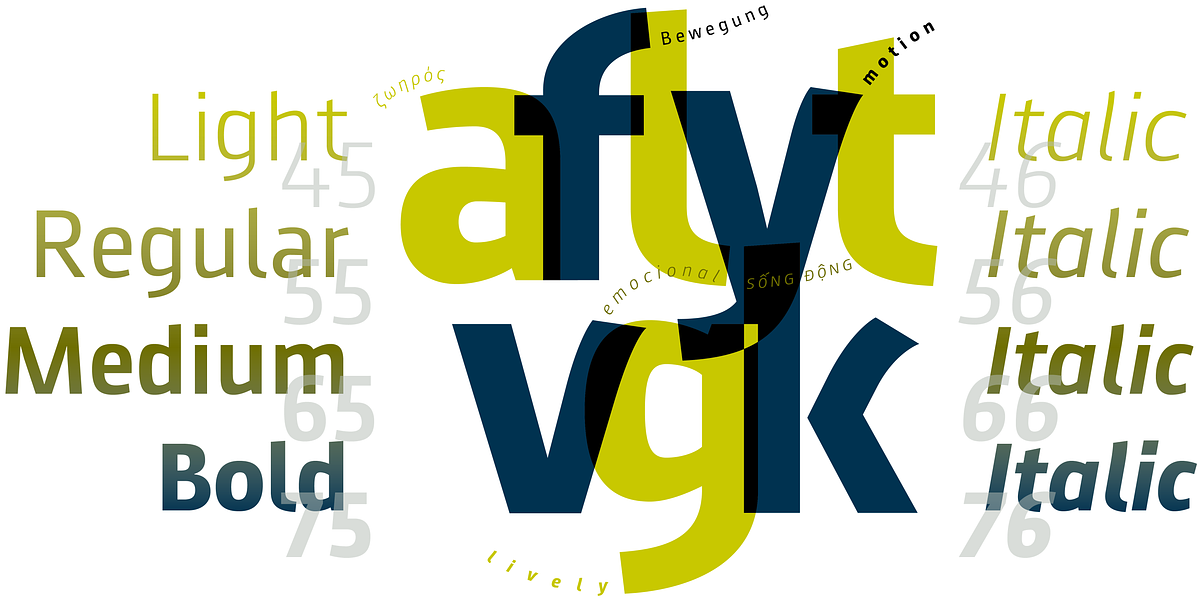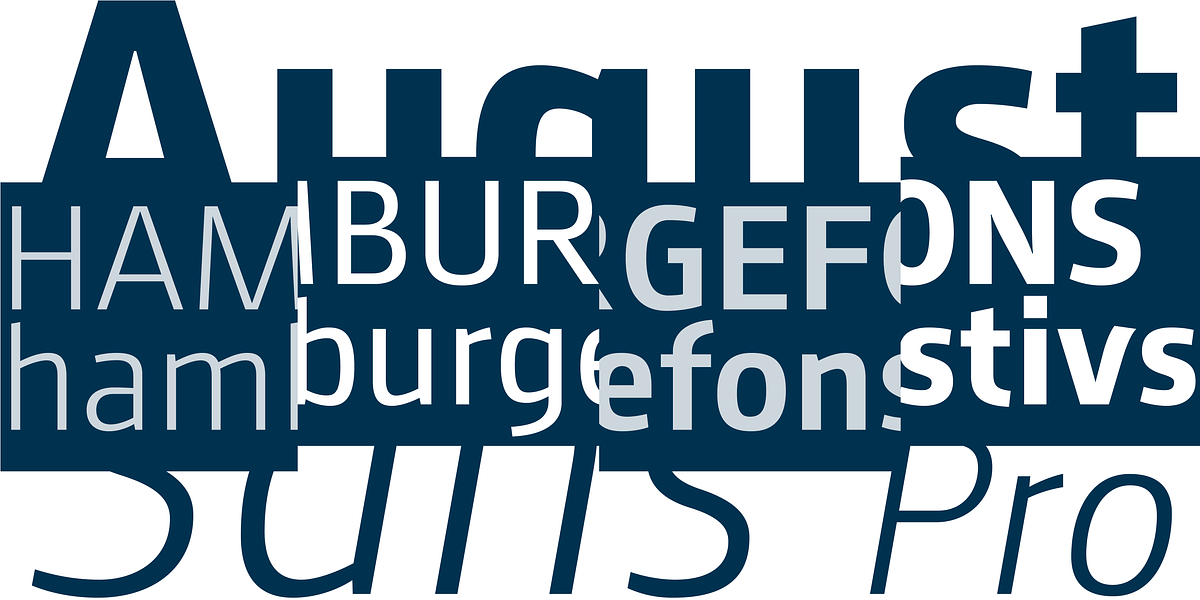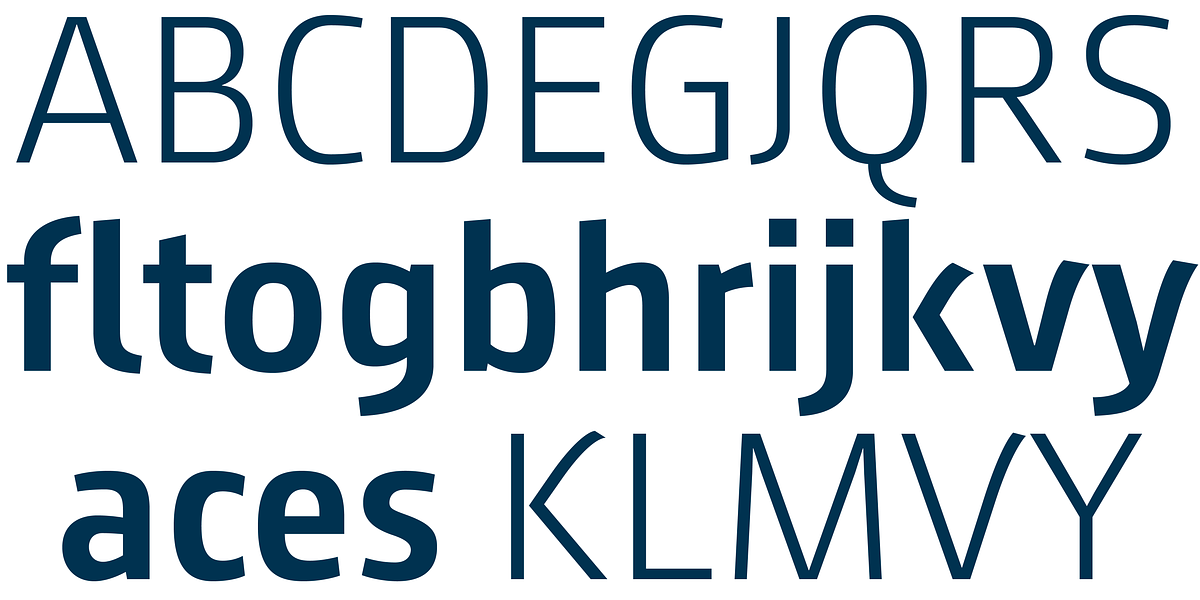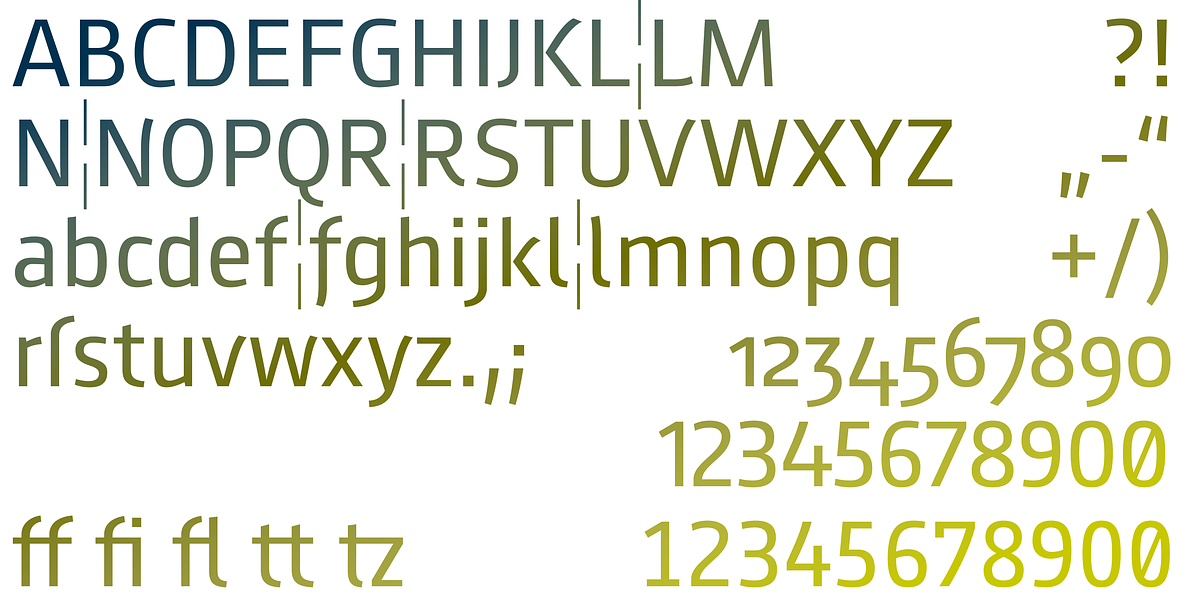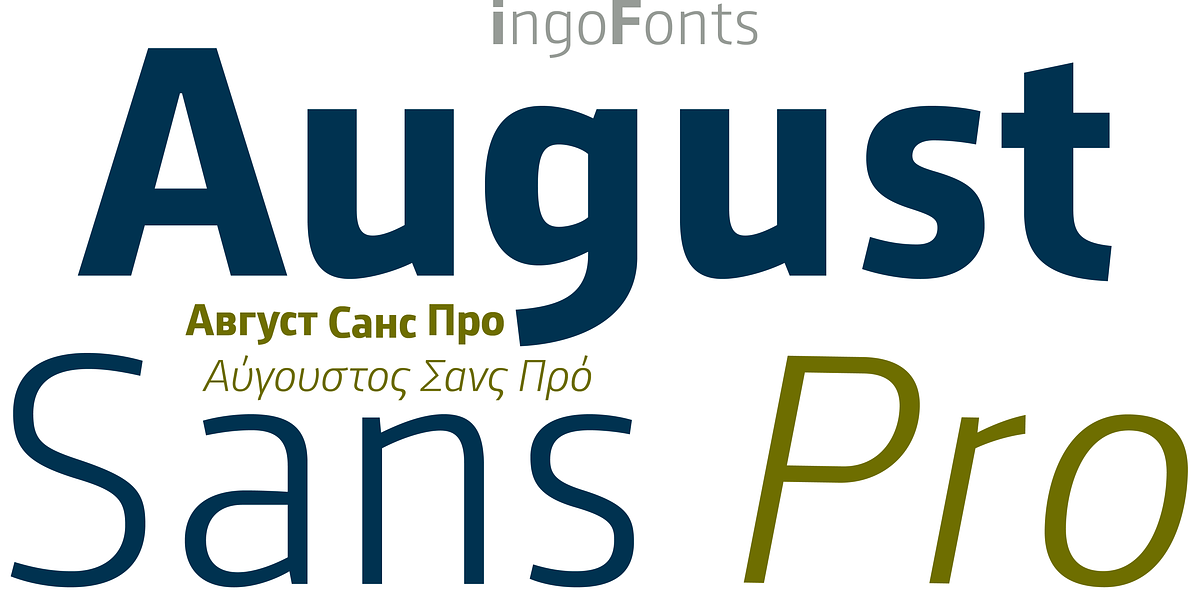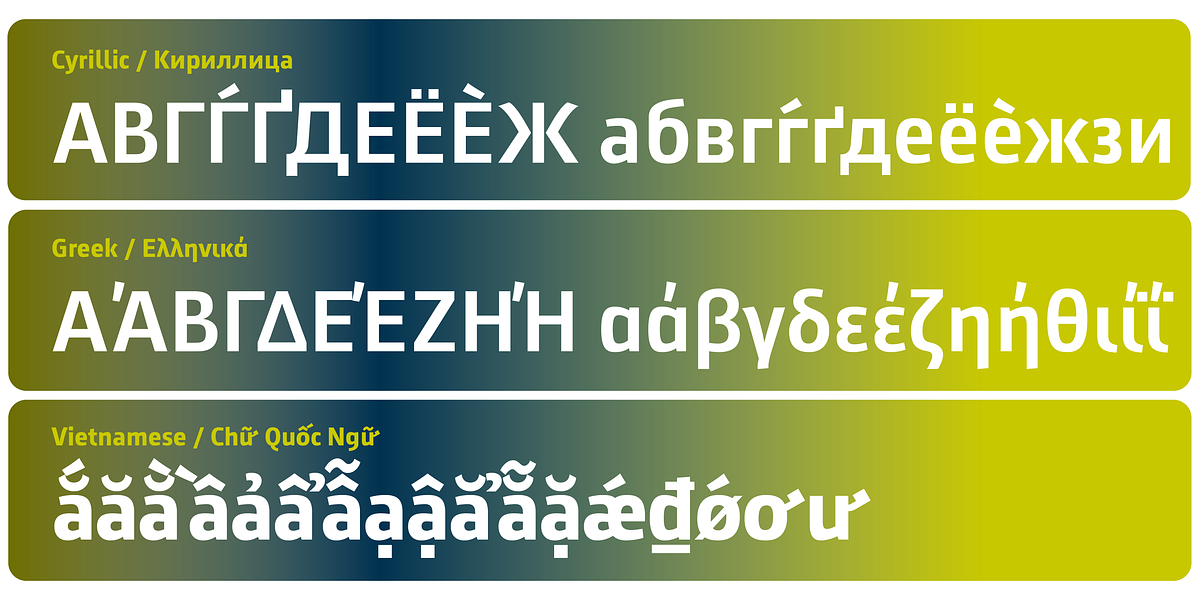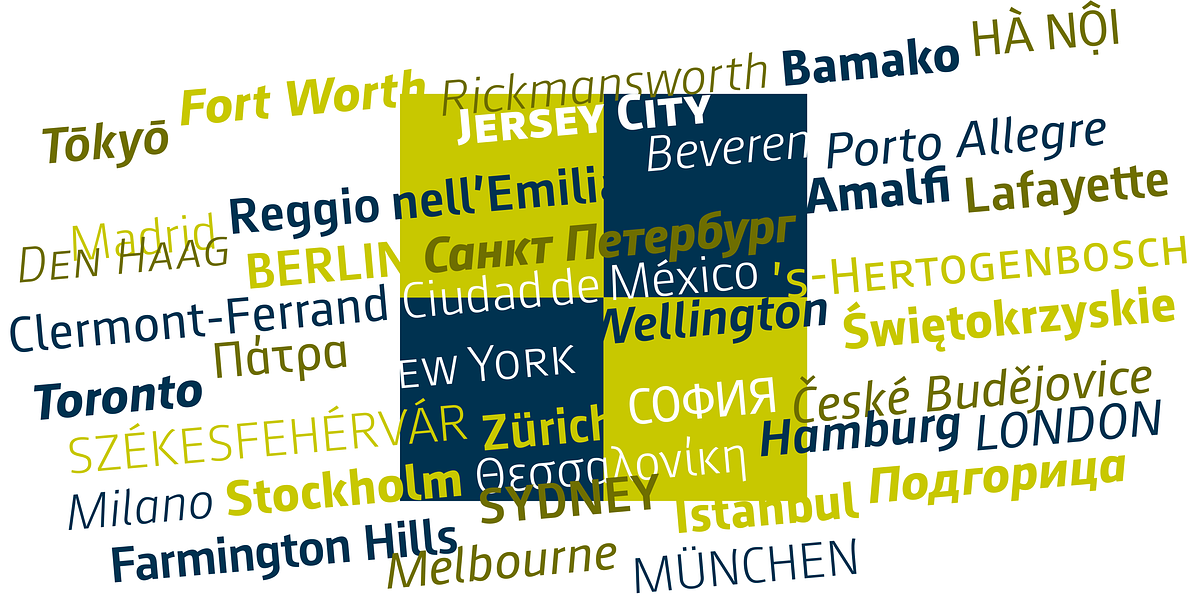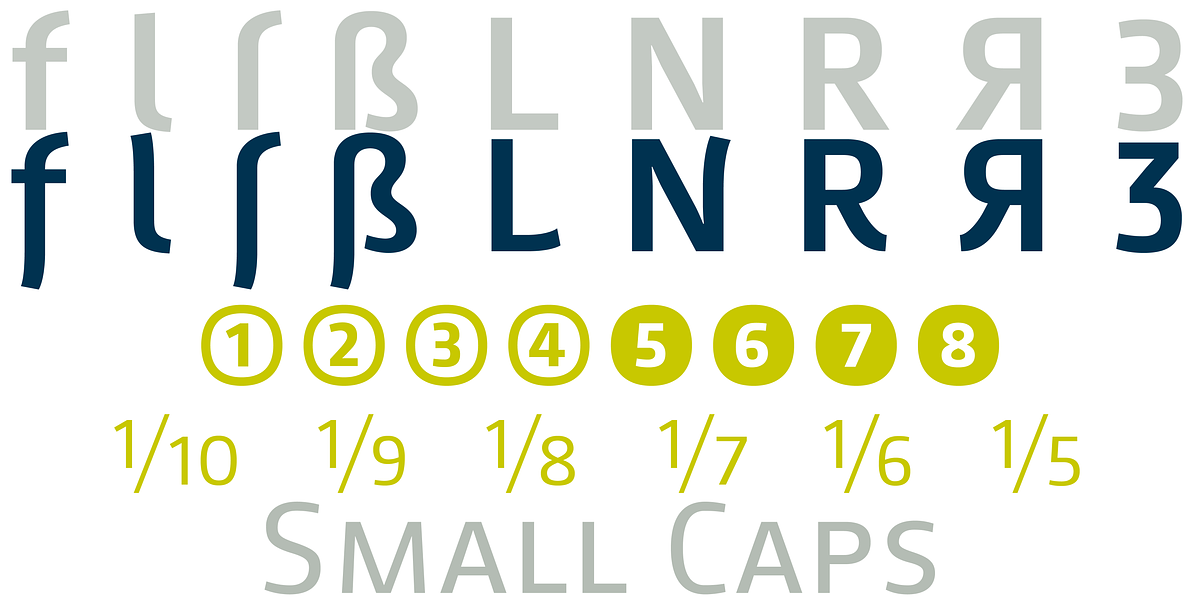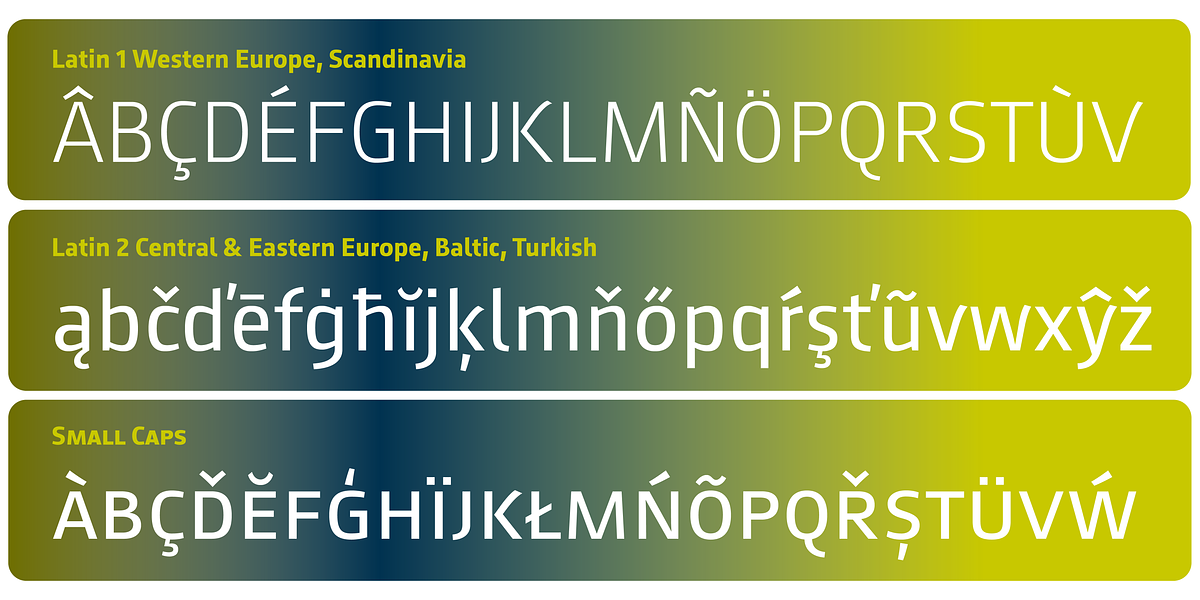
August Sans Pro
August Sans Pro is a modern sans serif font characterized by its humanistic design and large x-height. The font aims to be both legible for extended text passages and eye-catching in larger sizes. It includes various figure styles, stylistic alternates for specific characters, and supports a wide range of languages.